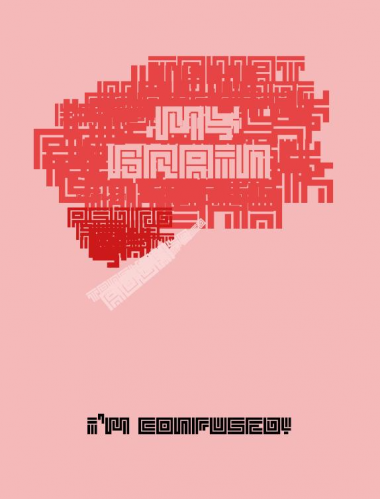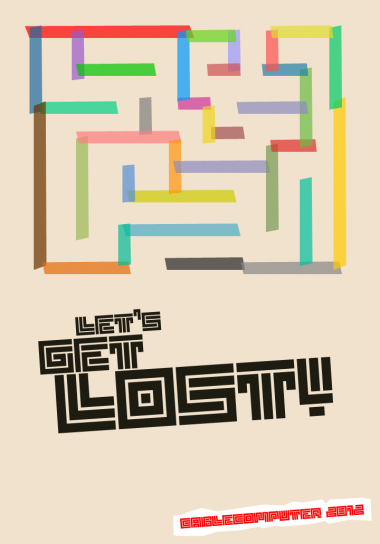
You've done a great job! The sample says "Бетон", it means concrete from russian, you might wanna add it to your tags.
10/10!
Awesome font, 9/10.
You were right to keep going in that direction, you're really mastering now these kinds of esthetic. What makes your approach special is your reappriation of techno very "occidental" styles but as if they were from countries not from the latin alphabet area (here i can't help thinking to Indonesia and such) but actually BEING latin and amazingly legible!
Great work; 10/10.
Beautiful exercise on the square centimeter and excellent samples. My only suggestion would be to add some small indents to the sides of X, to make it more distinct from H. Love the font, 10/10+ fav!
Motakku really pops at pxl size. Awesome work!
I was so busy looking up the link (above) that I forgot to say - really good work. 10/10
Really cool font! 10/10
Very good! :)
Enjoyed the inspired artwork !
"Otaku" (with one K) also means "geek" in Japanese...